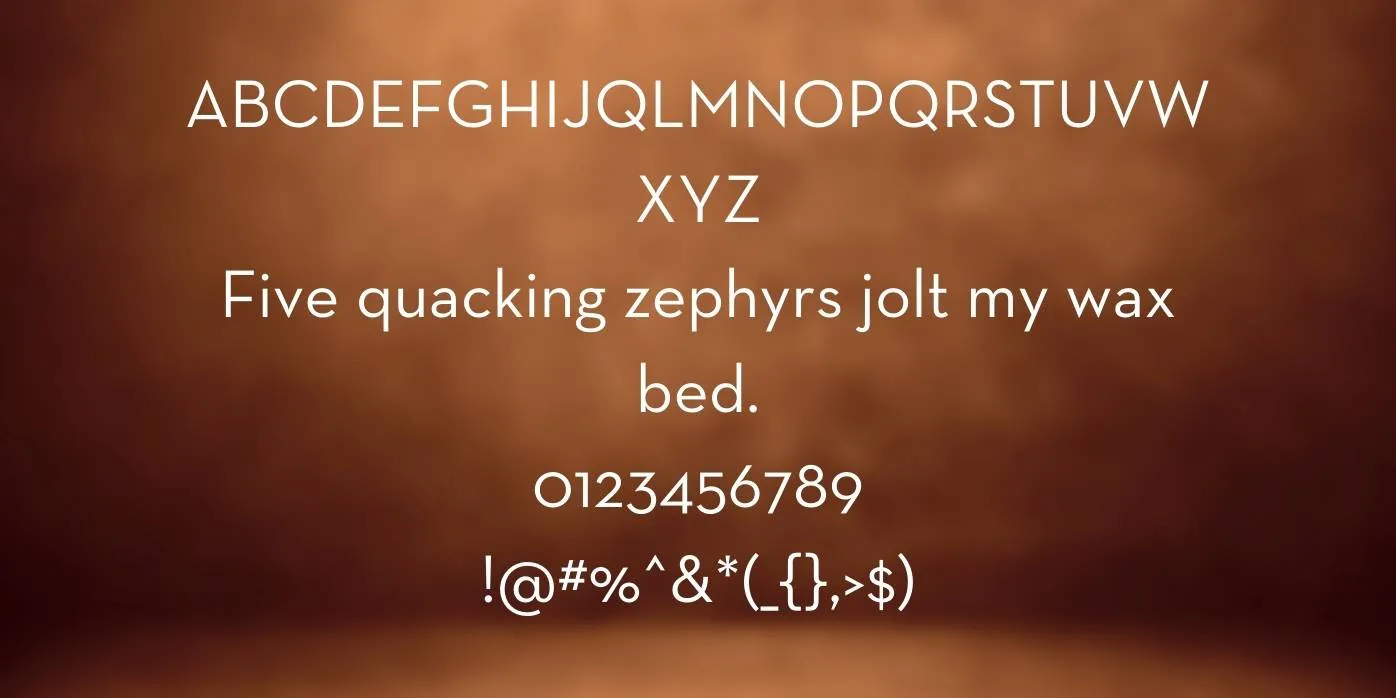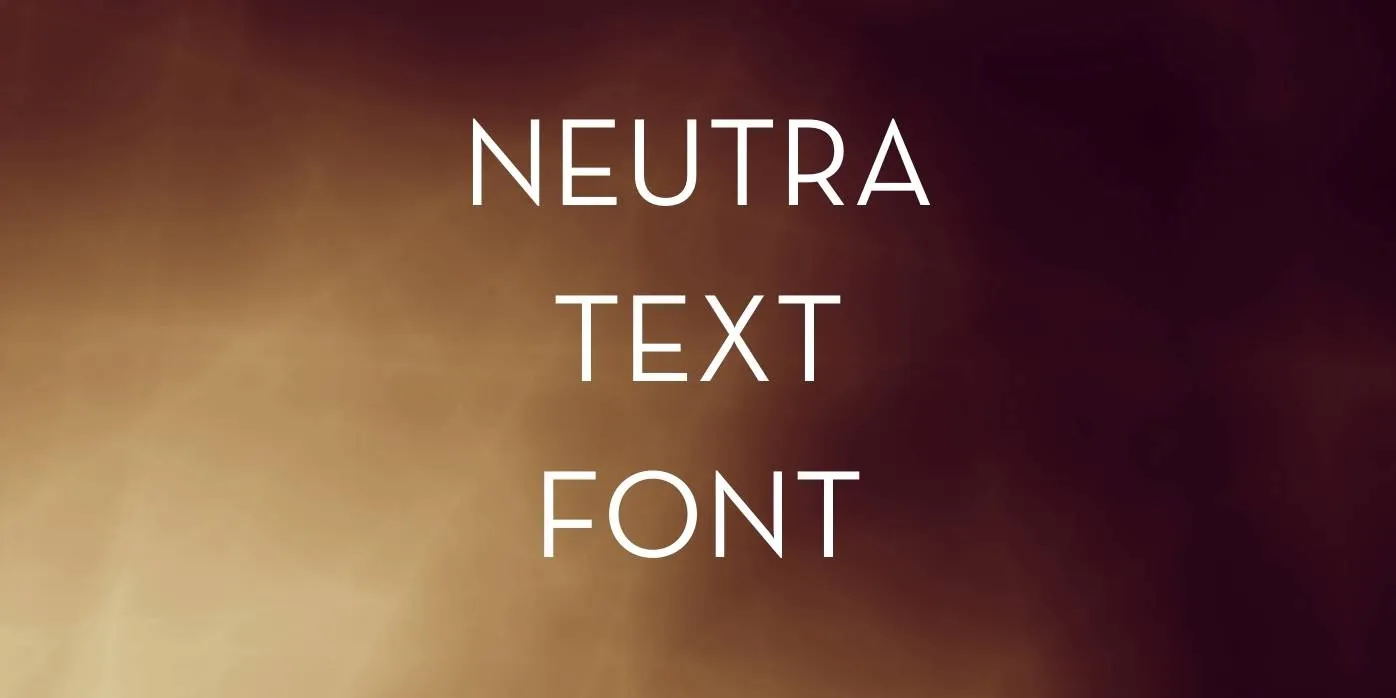
Neutra Text Font
We are presenting a very famous and standard font family named Neutra Text Font. It was designed by two popular designers  Richard Neutra and Christian Schwartz. It was designed on the work of an architect in the year 2002. This classic and unique font family was released by Amercian typeface foundry.
This typeface has come in different weights and four different styles. This attractive typeface is perfect for logos designs, book covers, and for long paragraphs. Its features provide the best facility when using this font with the pairing of Filosofia Font. Its different weights are Bold, Bold Italic, Book Italic in which Book Italic is most famous due to architects work.
This typeface supports different types of languages. This typeface has a great number of characters and glyphs. Which include different types of uppercase, lowercase, punctuation, symbols, and others more. One of the unique and best edges of using this typeface is that this font family is free for commercial projects with an adobe account.
You can make various designs of your interest. Its popularity and neatness make this typeface more bold and stylish. It has more advanced features. Different designers used this stunning typeface because of its best results.